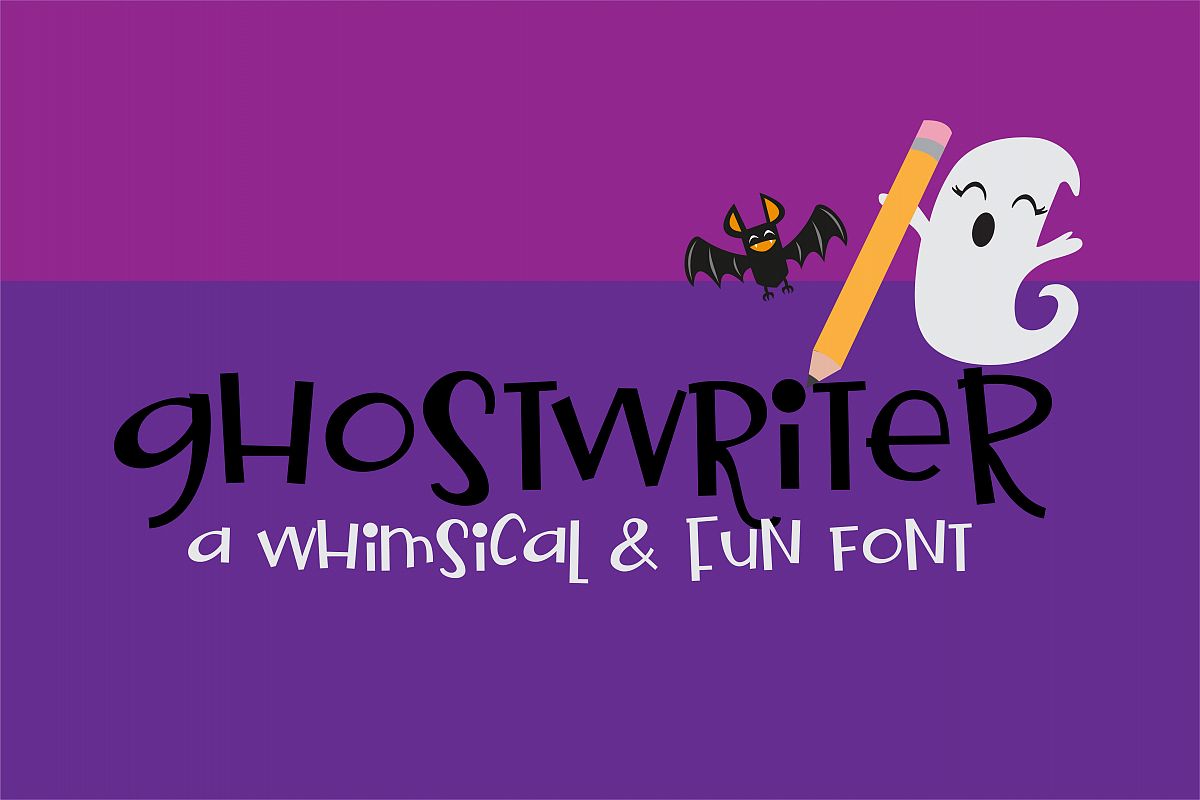
PN Ghostwriter
This cute and whimsical font has two mixed cases that you can mix and match to get creative results.
Uppercase (mix and match)
Lowercase (mix and match)